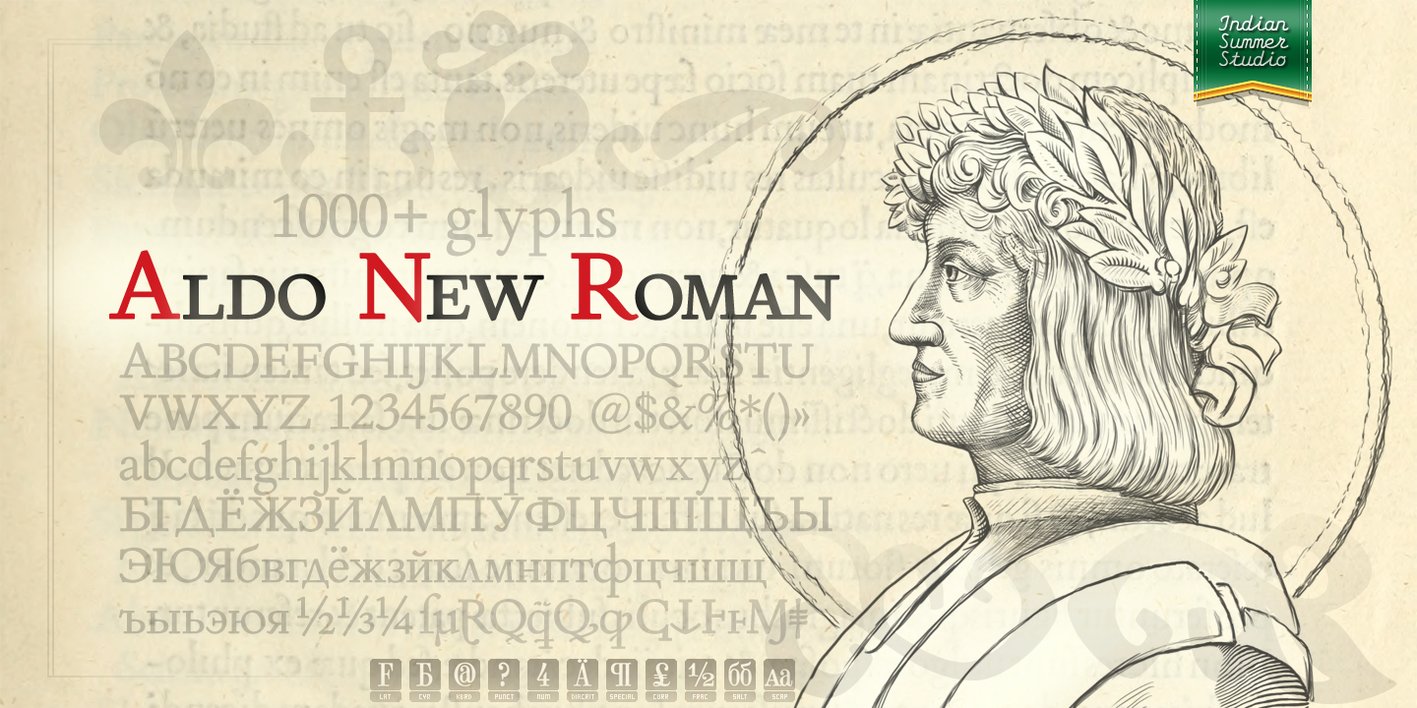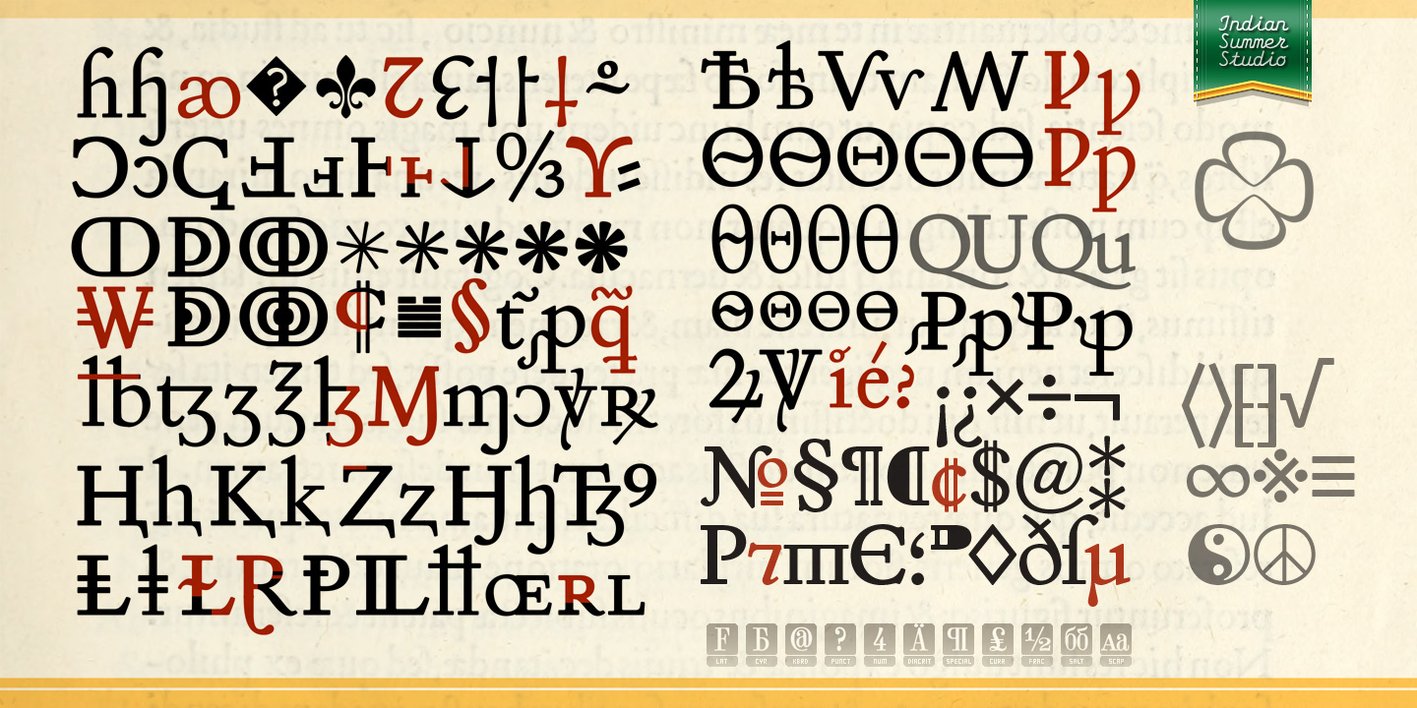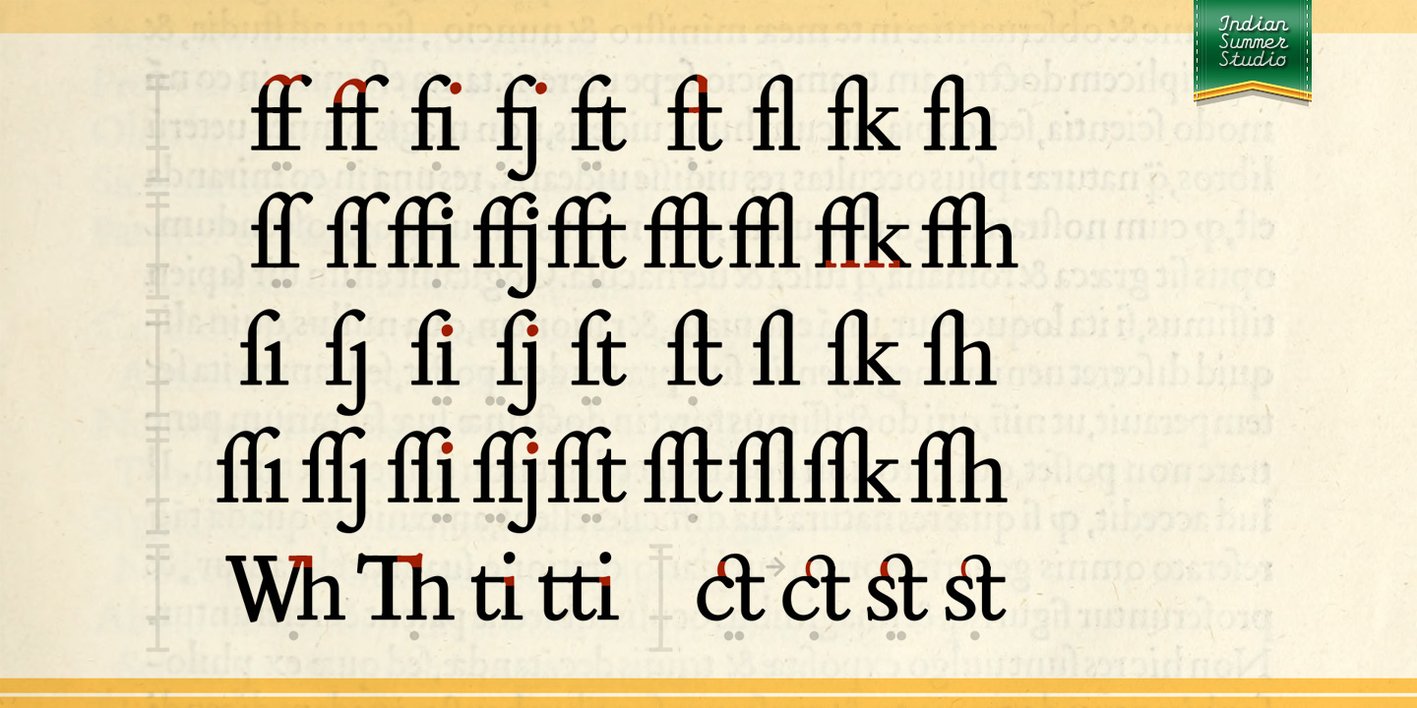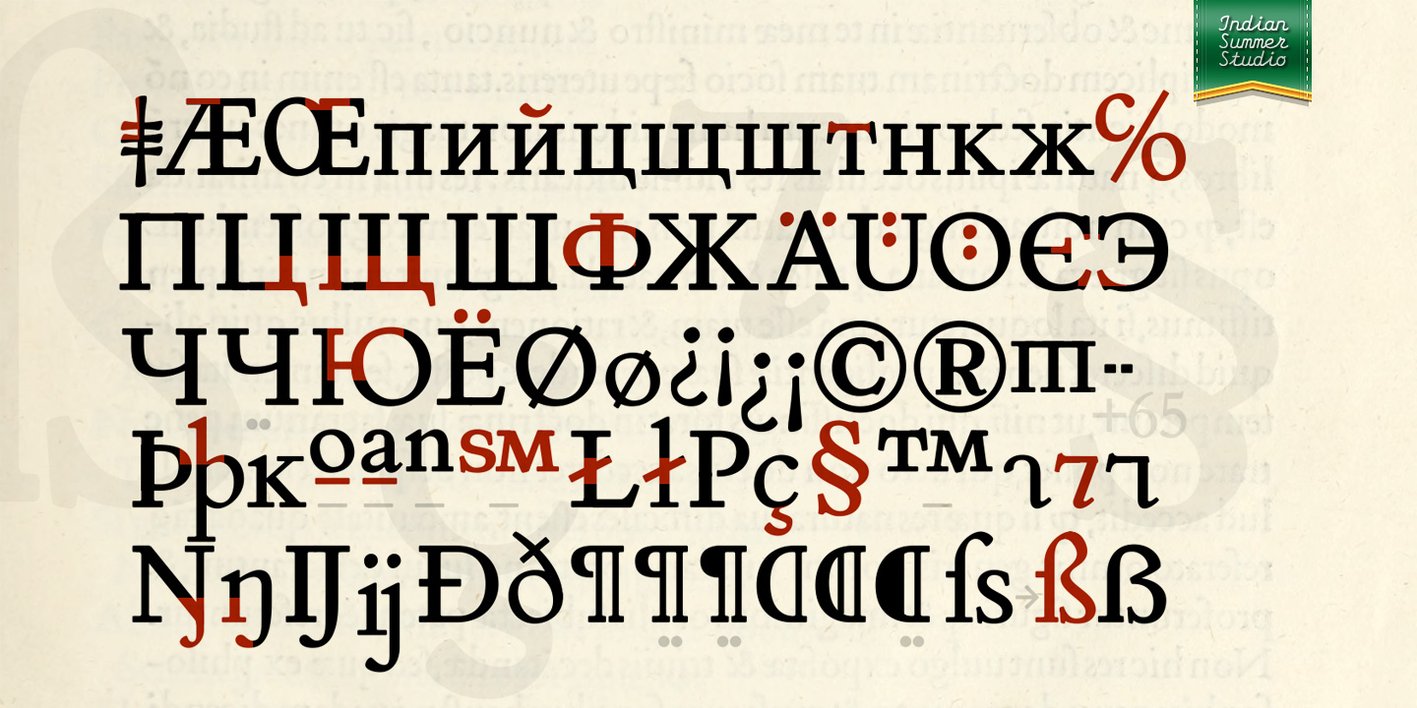
Aldo New Roman Font
Aldo New Roman (1000+ glyphs, incl. medieval Latin, Cyrillic, some Greek, ornaments, small capitals, nut fractions...) Renaissance antiqua · Venetian types · Venetian serif · Humanist serif · Old style antiqua A modern version of the typeface cut by Francesco Griffo for Venetian printer Aldus Manutius around 1490 AD. Intentionally not the original Griffo / Aldus / Bembo — but the part of the large project on revival and further development (by drawing many additional glyphs, sometimes over 1000) of the 20th century's typewriters’ fonts. Triple pun here :: :: #1 Aldine Roman type; #2 Since it is equalized, modernized version — the parallel to the Times New Roman; #3 He called himself Aldus Pius Manutius Romanus — he was a new Roman during his Renaissance times.